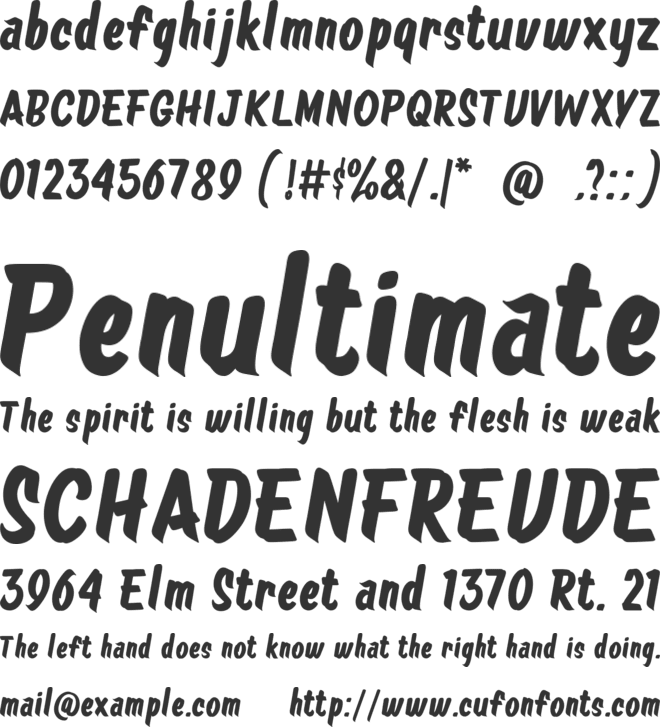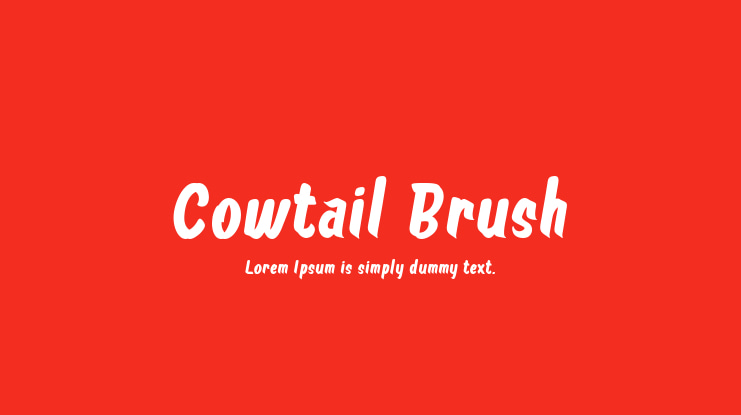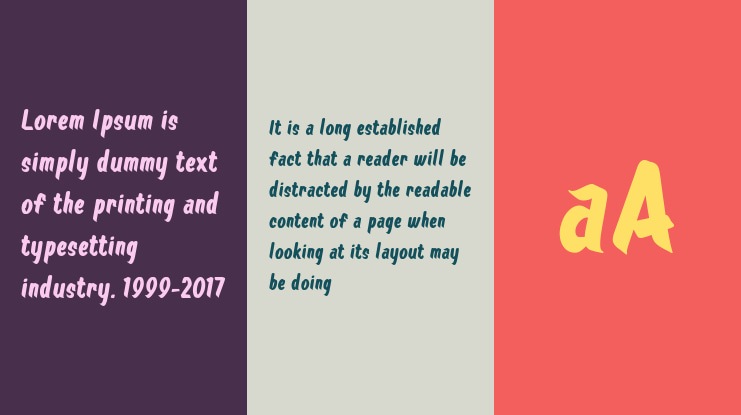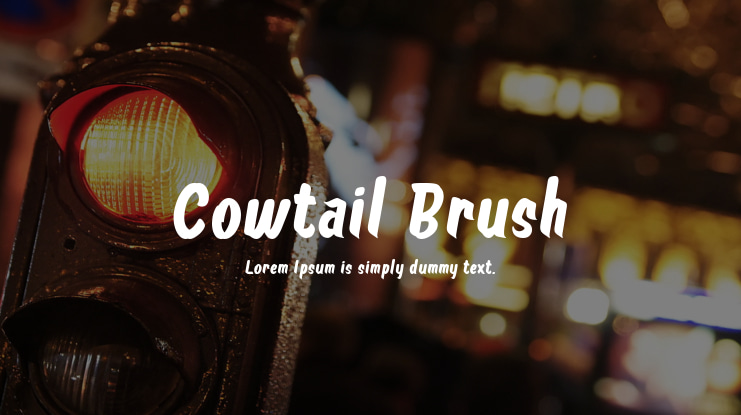
Cowtail Brush Font
Cowtail Brush Sign Font is a beautifully crafted typeface inspired by vintage sign brush lettering. Designed to evoke the charm and authenticity of classic hand-painted signage, this font delivers a true handwritten look with fluid strokes and organic curves, perfect for adding a nostalgic yet timeless feel to your designs.